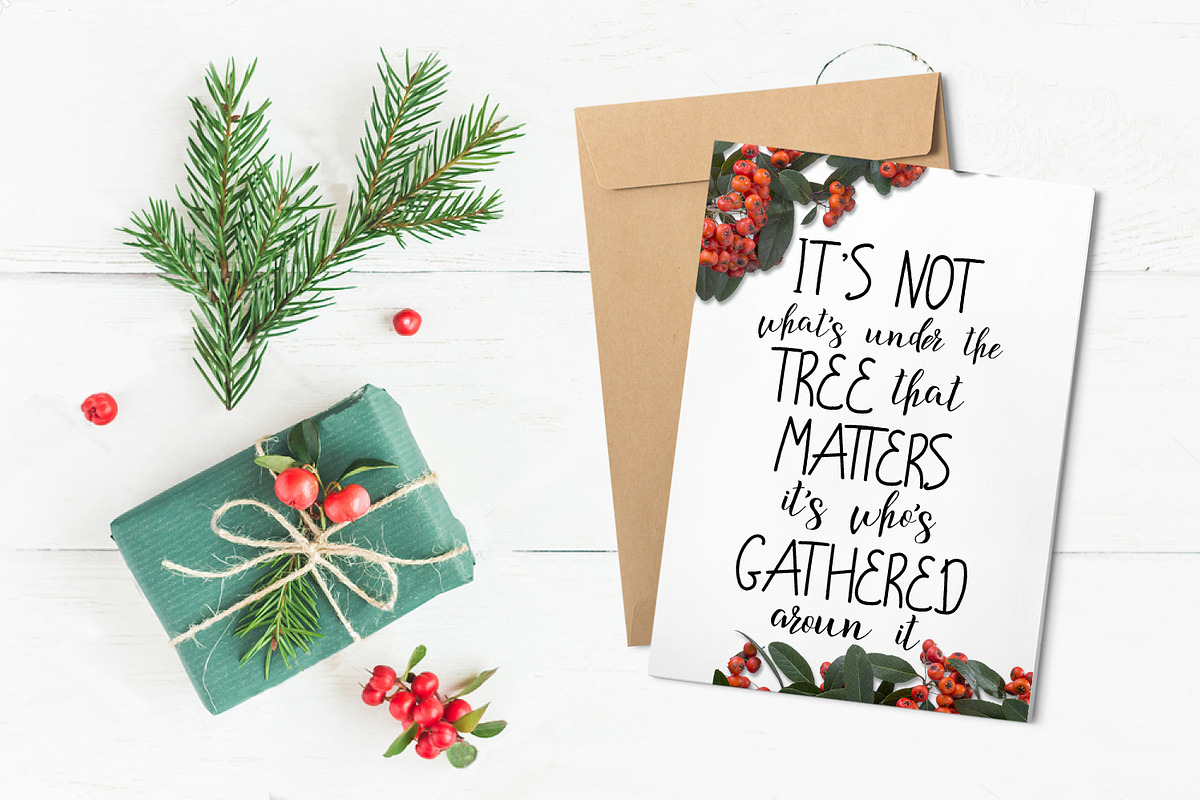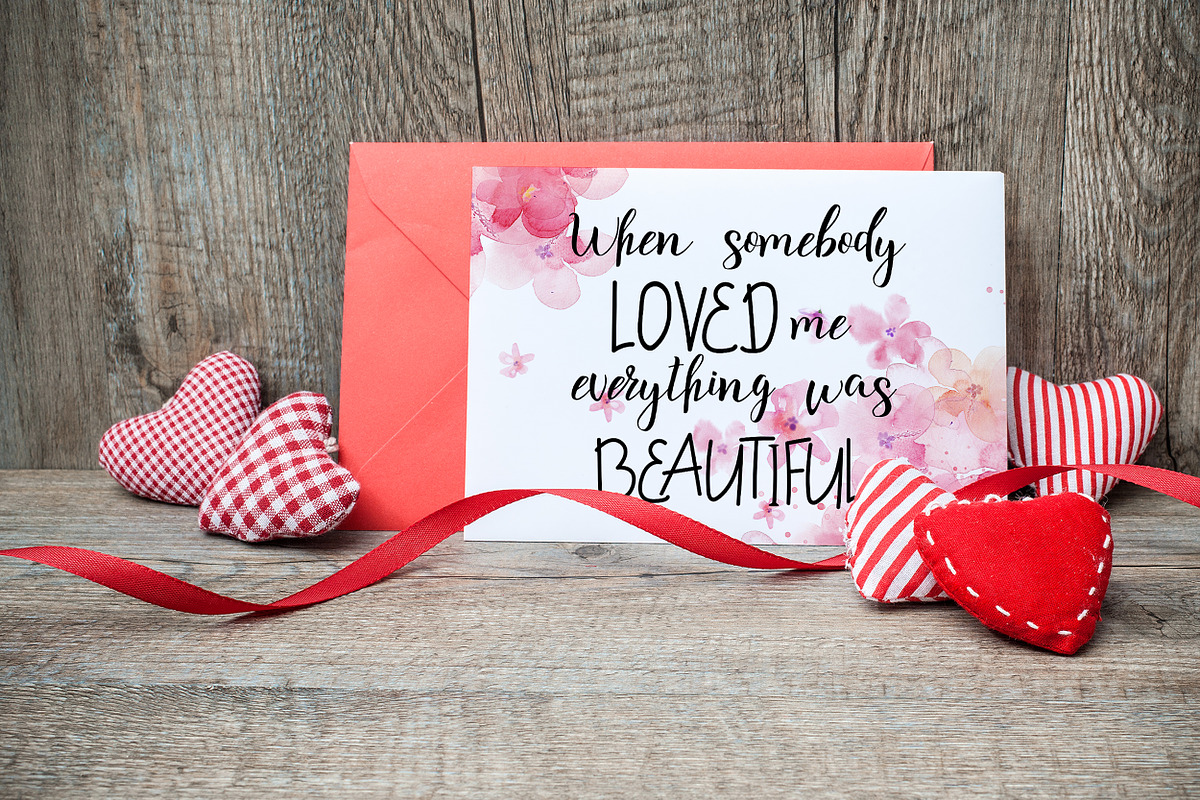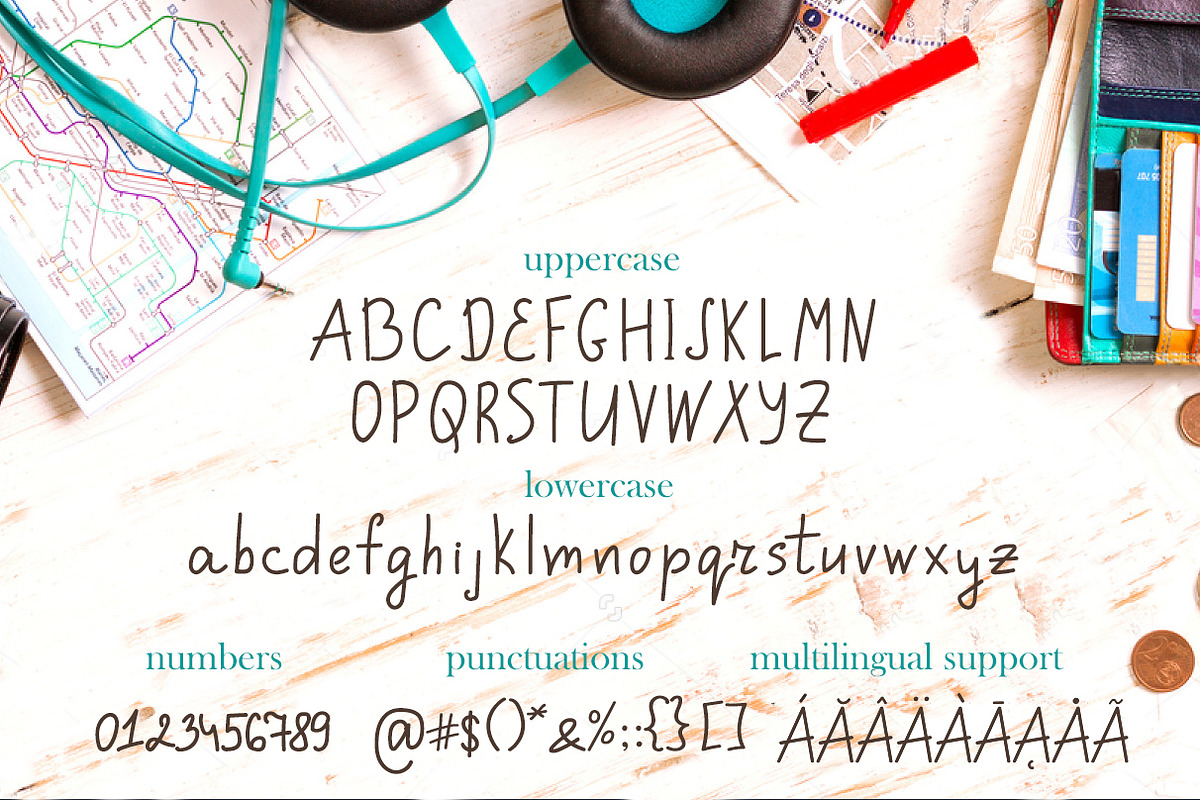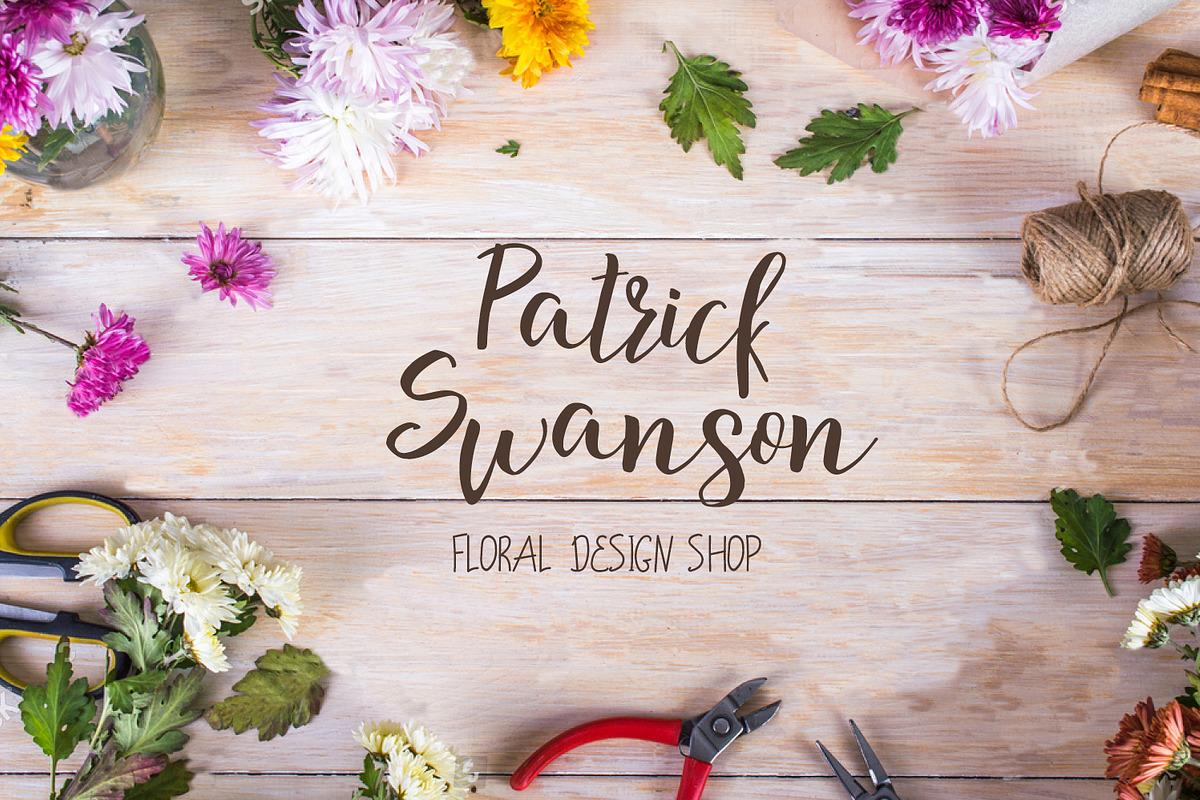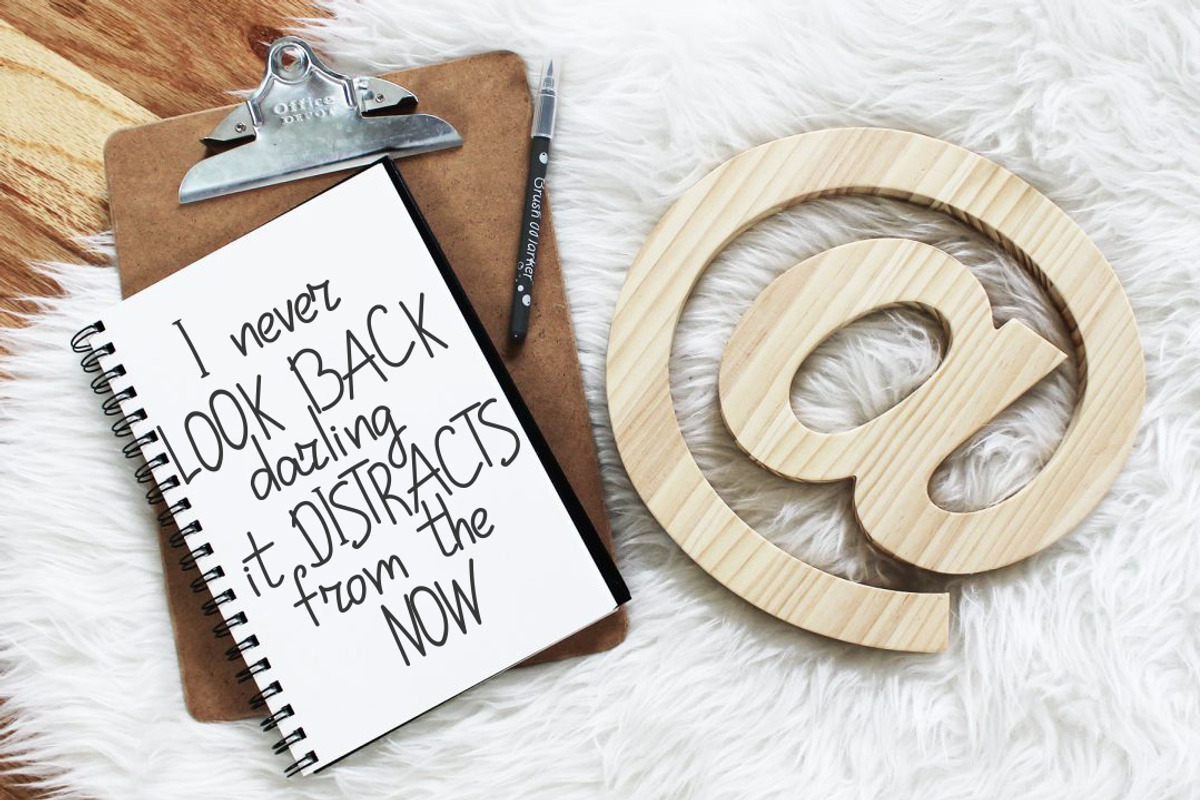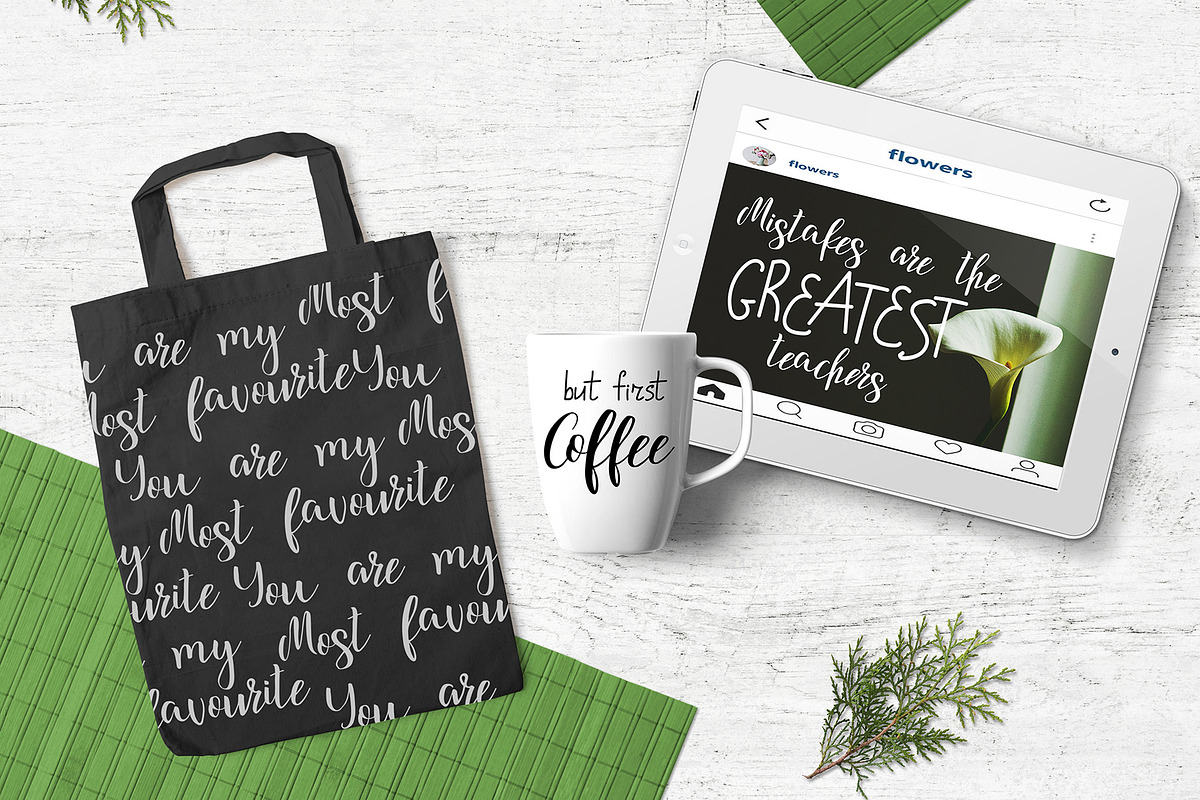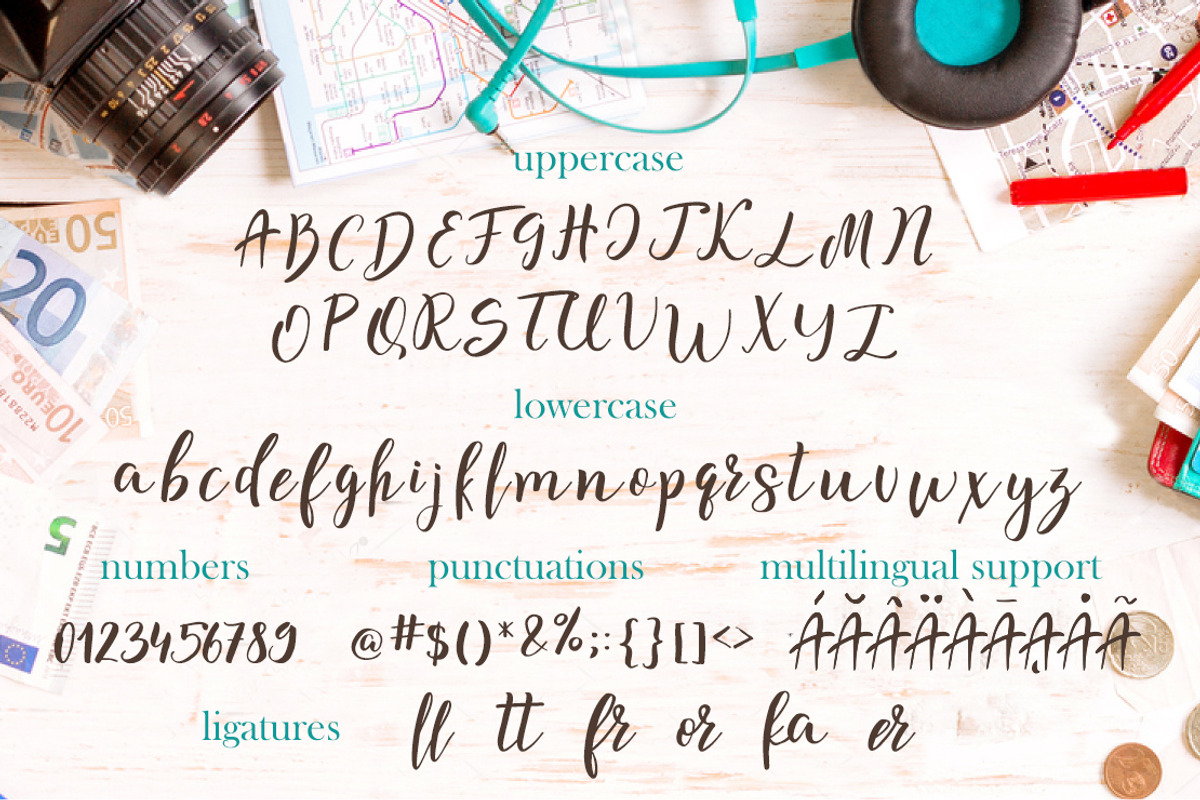
Travel to Marseille - Font DUO
I present to you a Marseille Font Duo, a happy duo of hand lettered and brushed fonts.
This font can be used easily and simply because there are ligatures, assorted punctuation, numbers and supports international languages.These characters are accessible via software with a glyphs panel.
Simply Marseille Font Duo makes custom lettering a dream thanks to all the little extra decorative options you can include for a pretty and unique customisation.
MarseilleScript-Regular -main script font
Marseillethin-Regular - handlettered font
Perfect for greetings, branding, prints, invitations, and crafting, print, t-shirt design, to personalised logos, handwritten quotes and so much more!